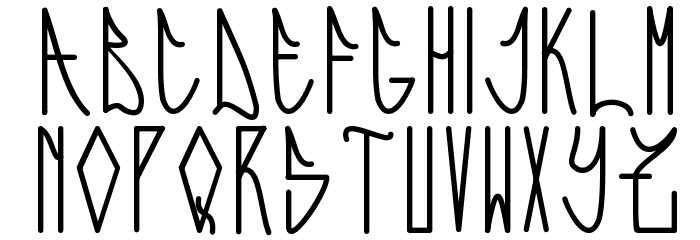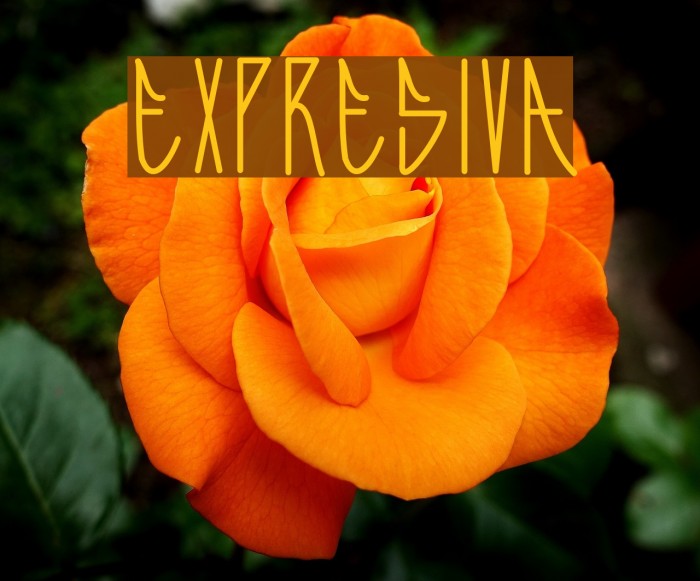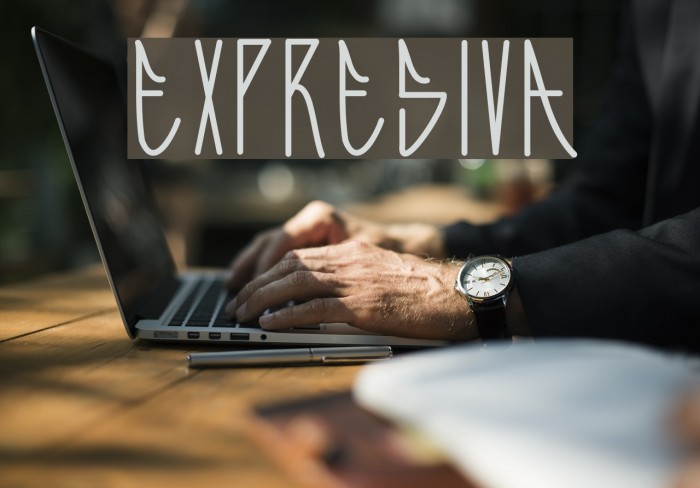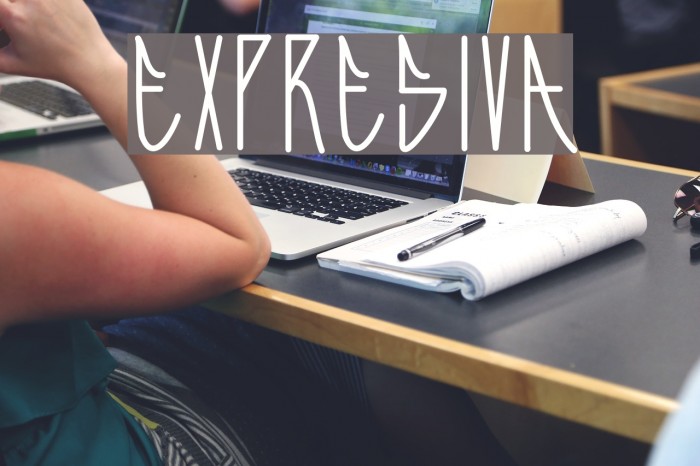
Expresiva Font
This font features a unique and expressive design with a distinct geometric and angular style. The characters are elongated and have sharp, pointed edges, giving them a modern and edgy appearance. The uppercase letters are particularly striking, with a mix of straight lines and curves that create a dynamic visual effect. The lowercase letters maintain the same angular aesthetic, providing a cohesive look across the alphabet. The numbers and special characters follow the same design principles, ensuring consistency throughout. This font is perfect for projects that require a bold and unconventional look, making it ideal for creative and artistic applications.
A geometric and angular font with a modern, edgy style.
- Proposed Projects: Ideal for creative projects, artistic designs, branding, and modern posters.
- Use Case: Logos, Posters, Artistic Designs